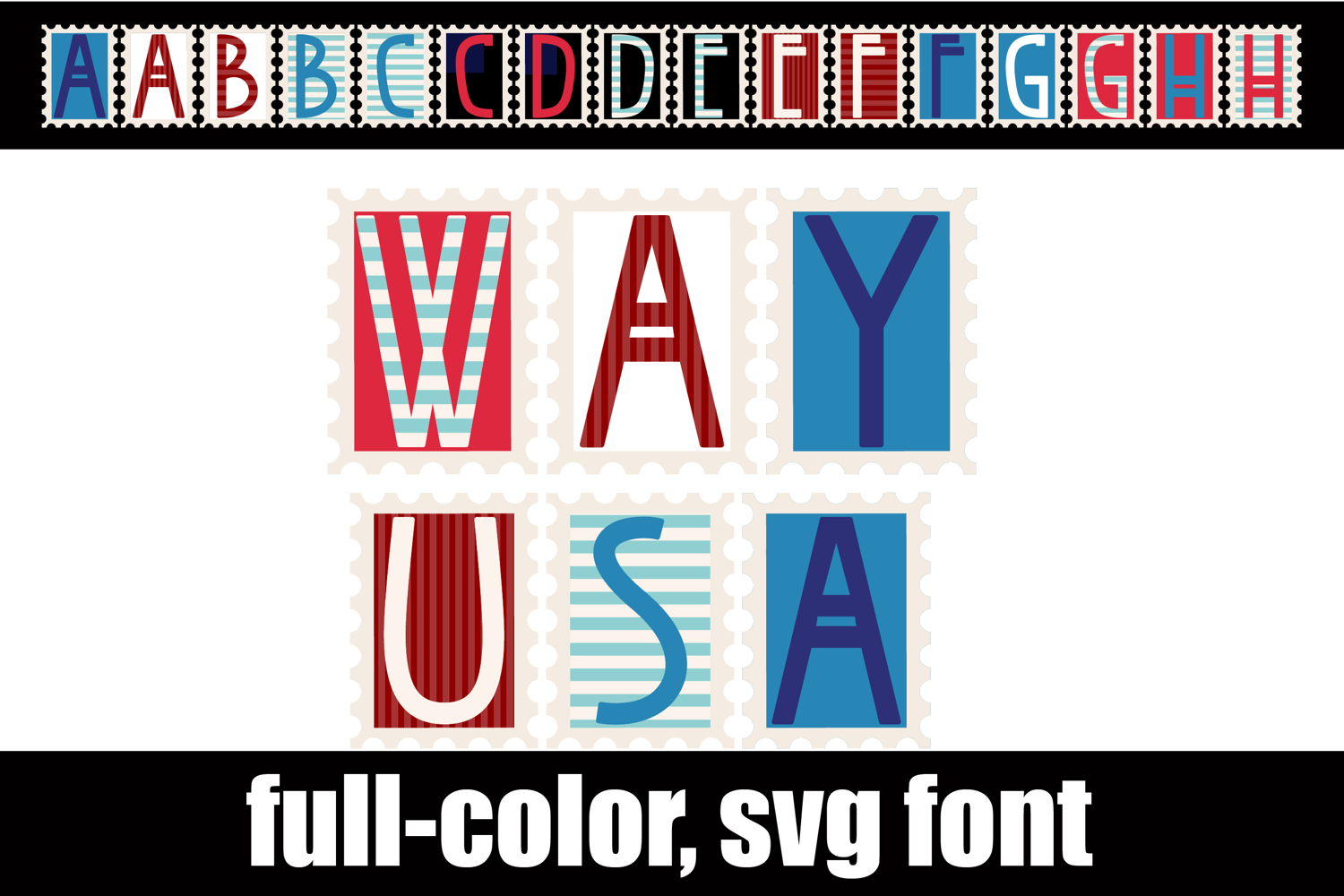
Way USA Color Font
This full-color, postage stamp style font is in a patriotic color palette. There is an alt case of additional colors of each letter that you can access through your system's character map.